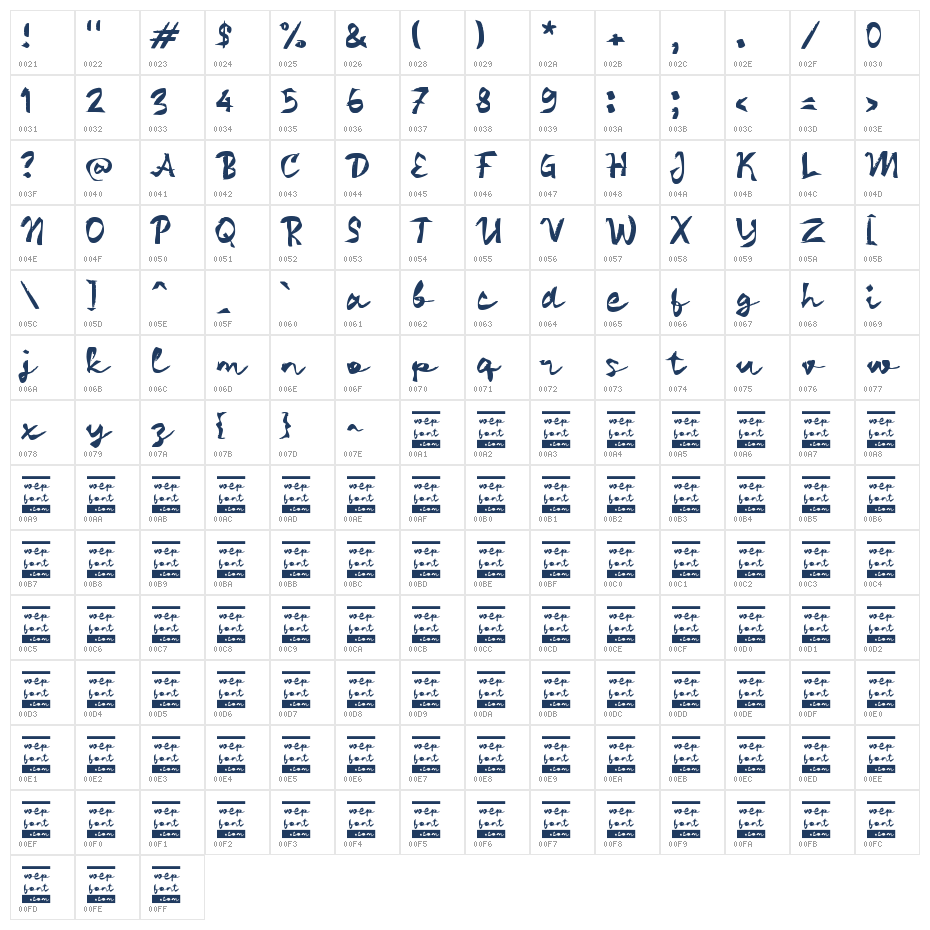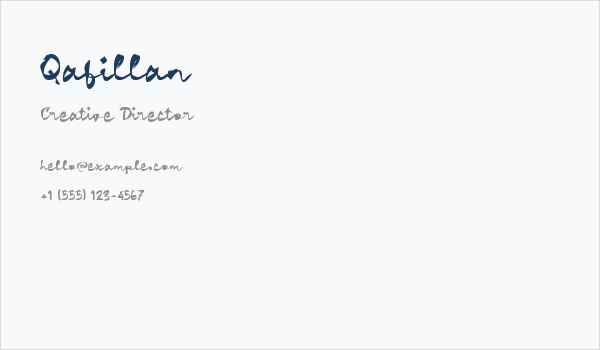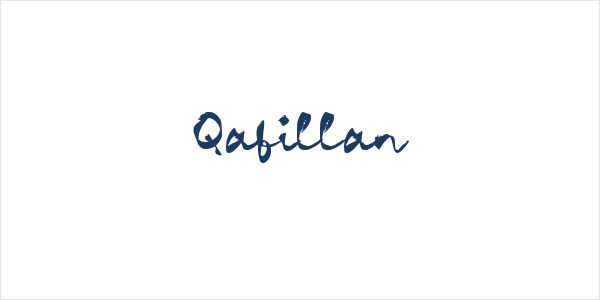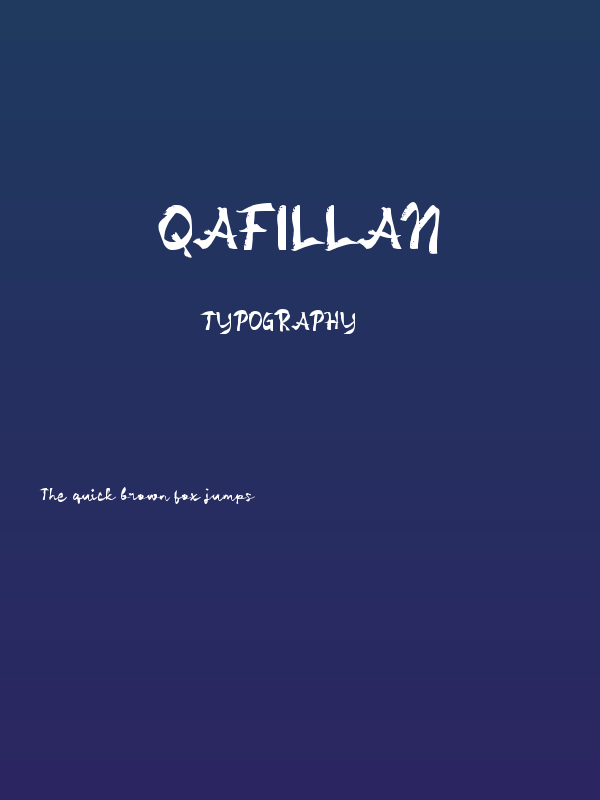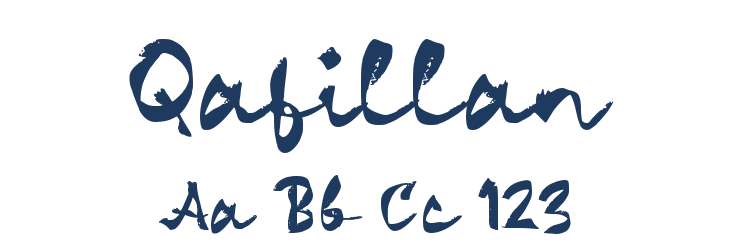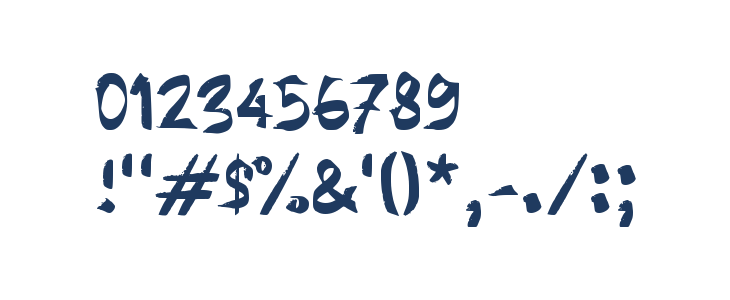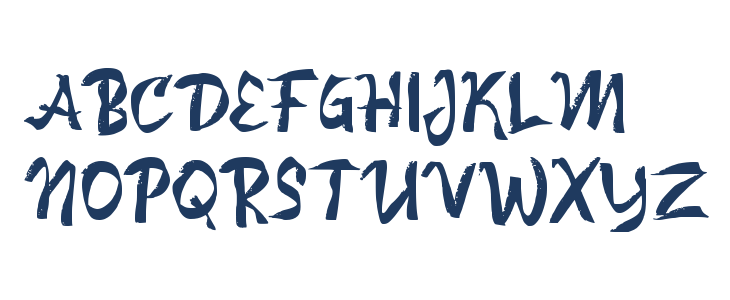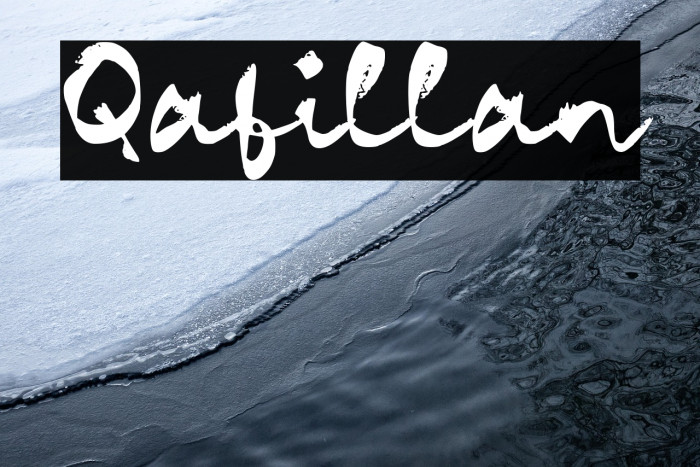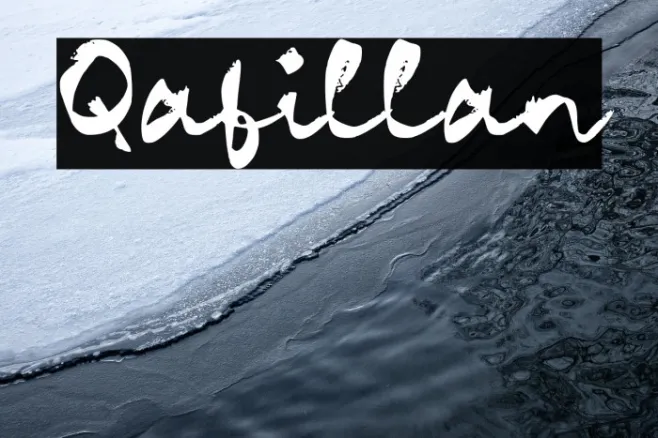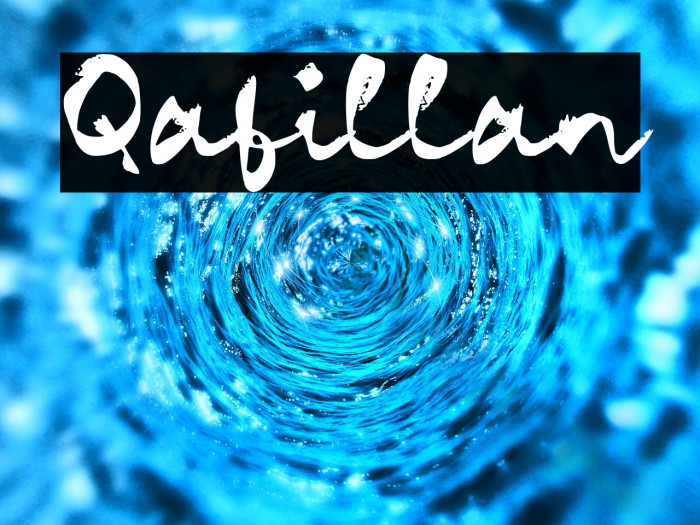
Qafillan Font
Qafillan Description
A decorative, brush-stroke style font with a playful and artistic appearance, featuring irregular edges and a hand-painted feel.
| Overall Style | Artistic, Handcrafted, Playful |
| Use Case | Headlines, Logos, Posters, Artistic branding |